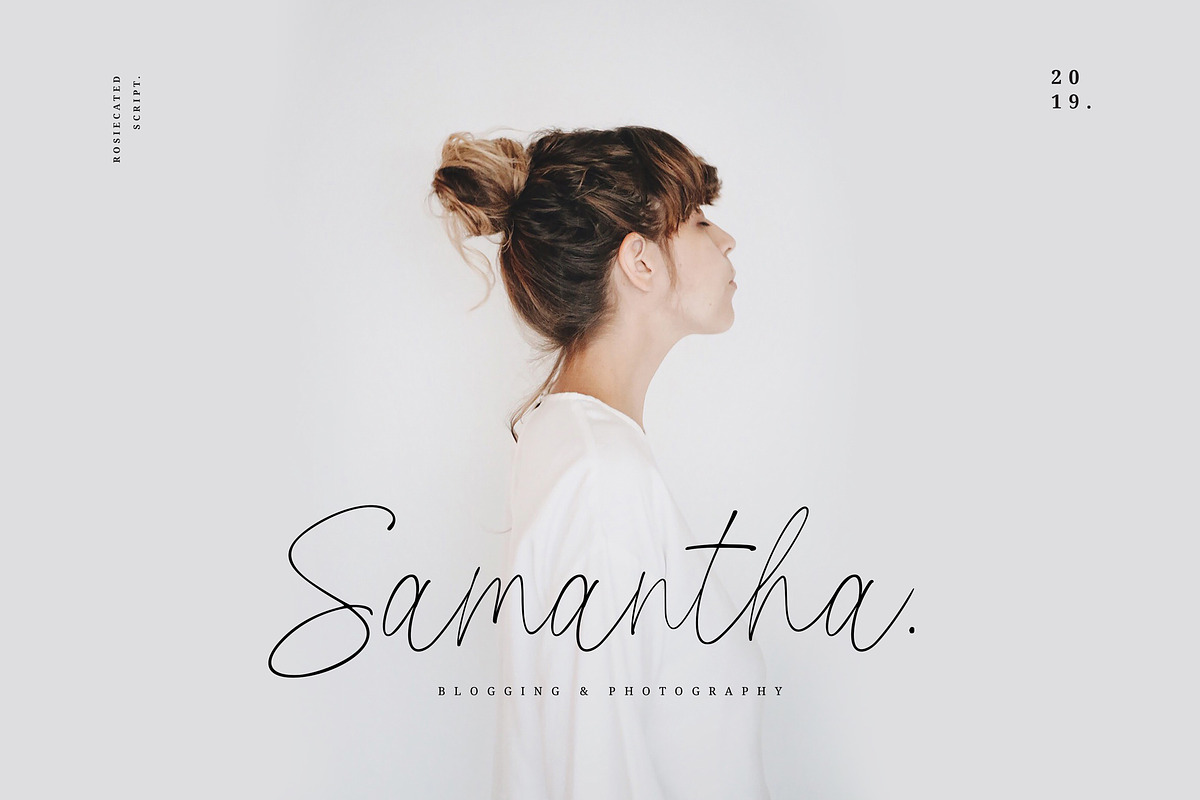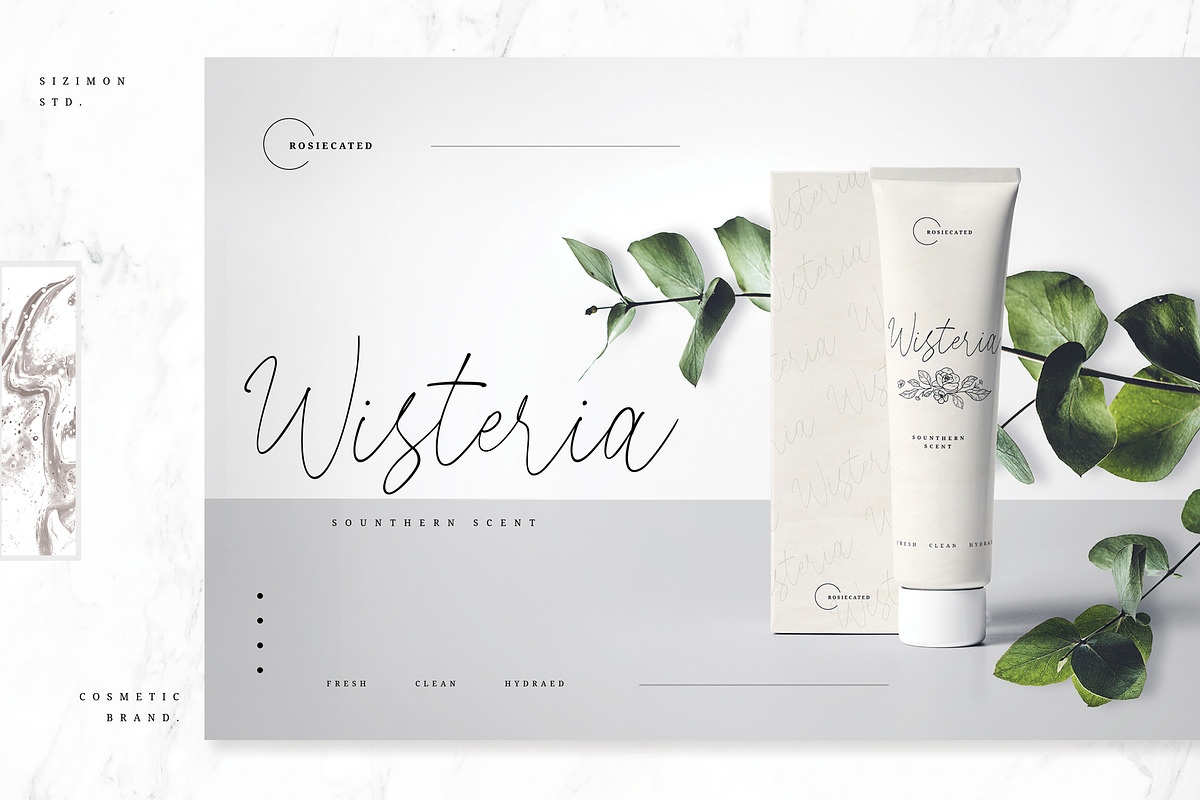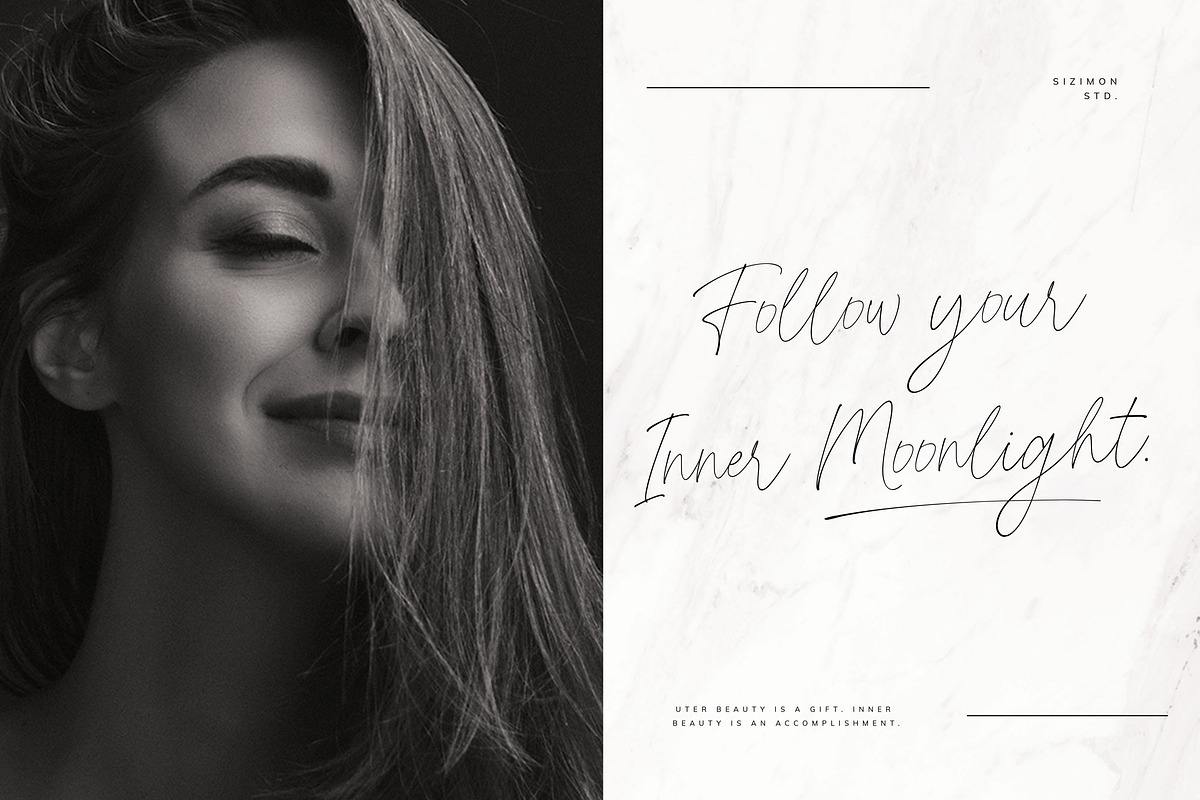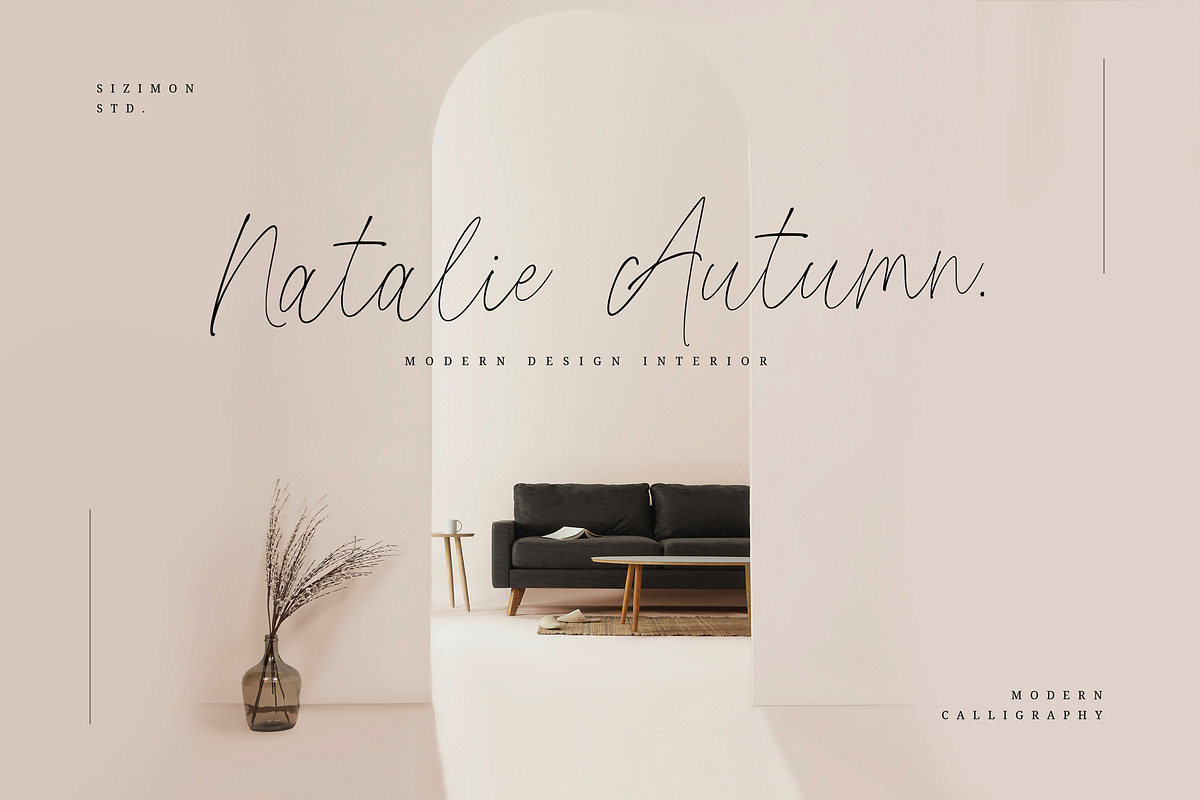
Rosiecated Script!
Introducing our New Collection, she is really pretty and sweet. Let's call Rosiecated, she's a stylish modern calligraphy with casual chic flair. She's perfect for packaging, wedding invites and cards, and branding. She will show you with a full set of lower & uppercase letters, a large range of punctuation, numerals, and multilingual support.